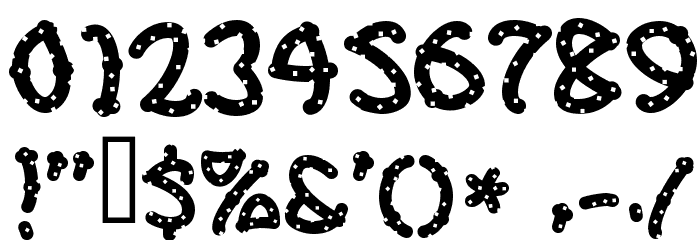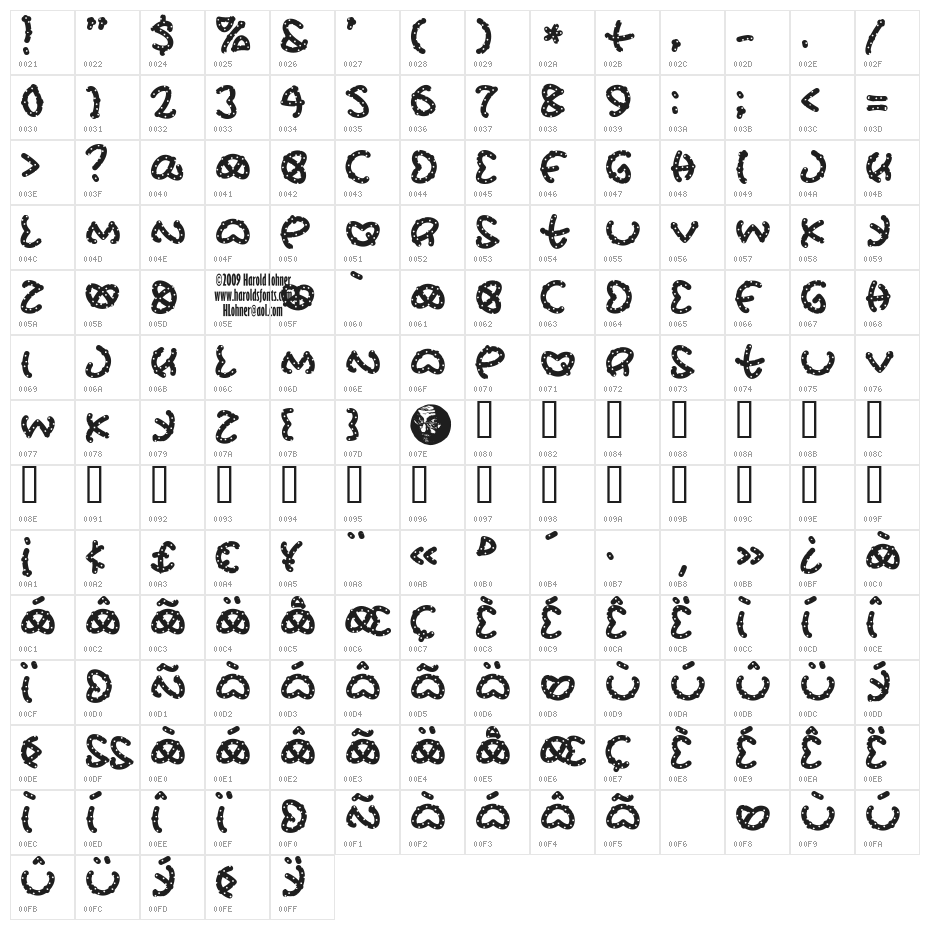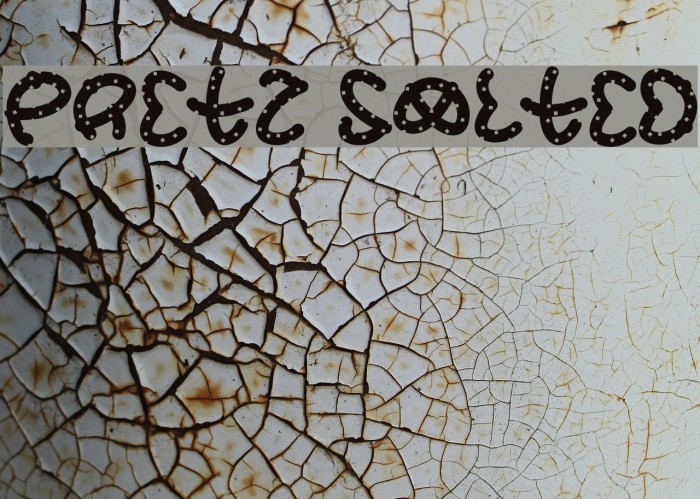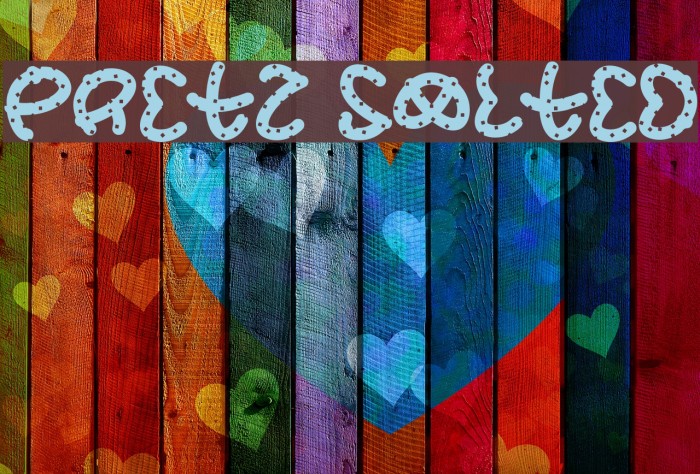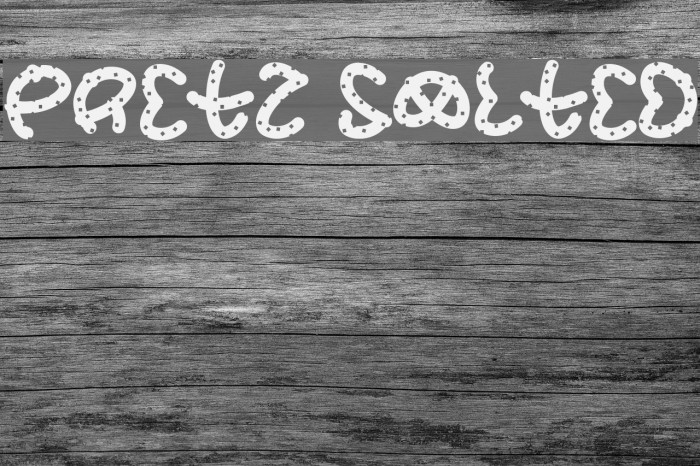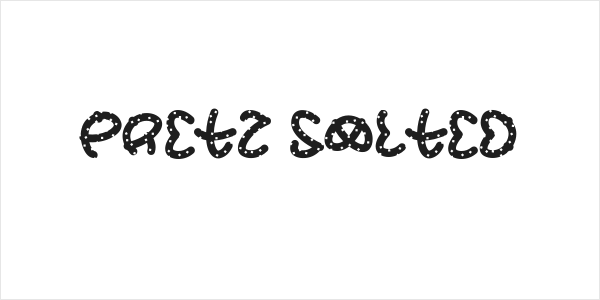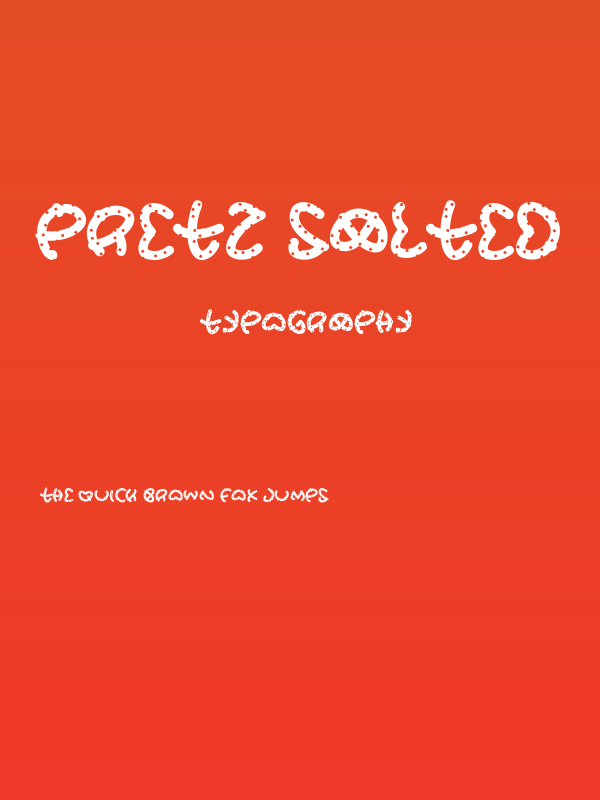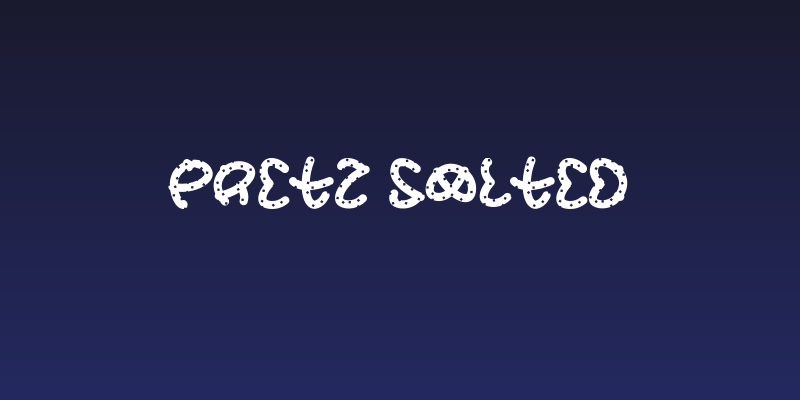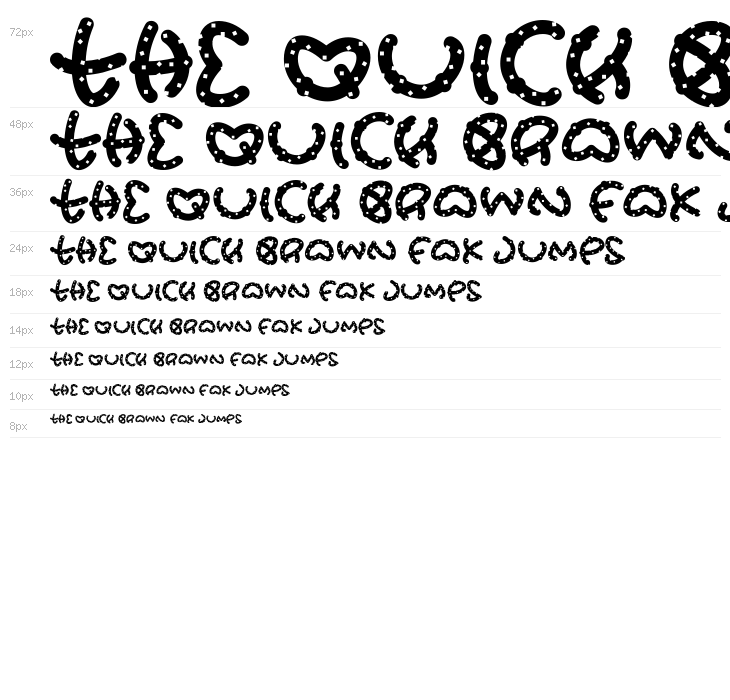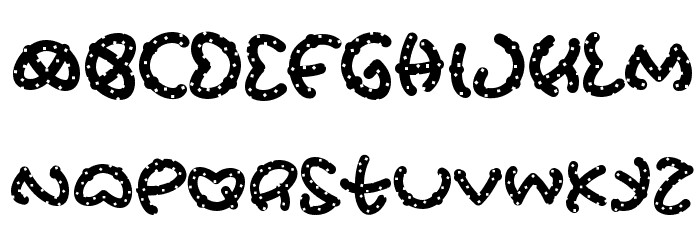
Pretz Salted Font
Pretz Salted Description
This playful and whimsical font is designed to mimic the appearance of pretzels, complete with a textured look that resembles salt sprinkled on top. The characters are rounded and interconnected, giving a sense of fun and creativity. Each letter and number is crafted to maintain the pretzel theme, with curves and loops that are reminiscent of the snack's iconic shape. The font is bold and eye-catching, making it perfect for projects that require a touch of humor or a unique visual appeal. The special characters are also designed to fit seamlessly with the overall style, ensuring consistency across all text elements.
| Proposed Projects | Ideal for food-related branding, playful posters, children's books, or any project needing a fun and unique typeface. |